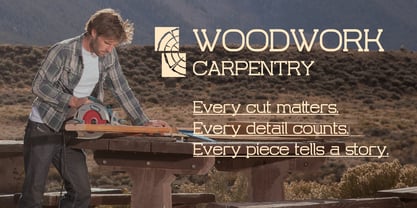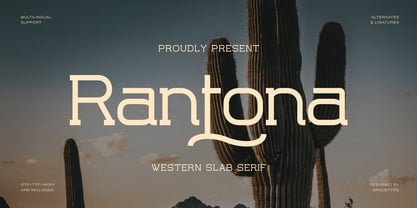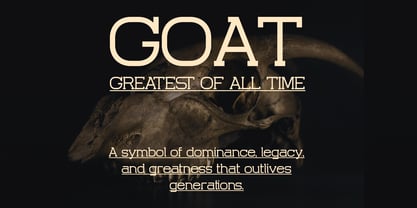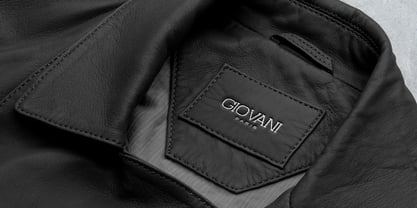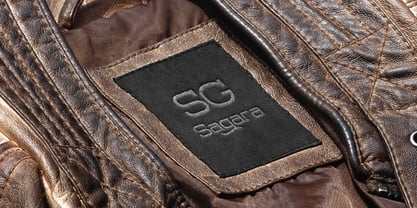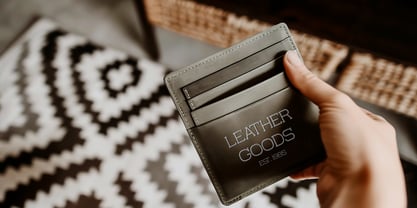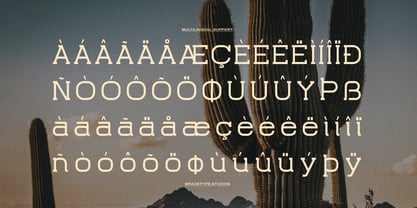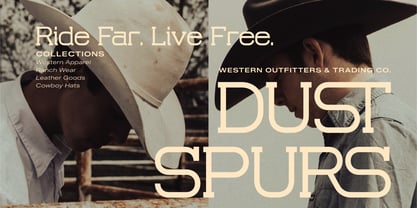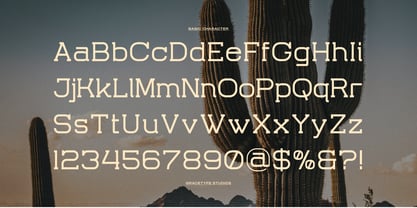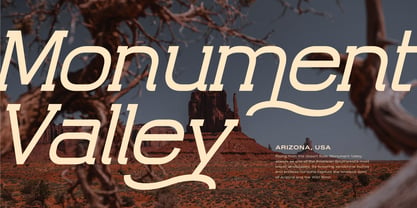
Rantona
por Tini Fitriani
A família de fontes Rantona e publicada pela Tini Fitriani. Rantona contém 2 estilos e opções de pacote familiar. Saiba mais sobre esta família
Fundição: Tini Fitriani